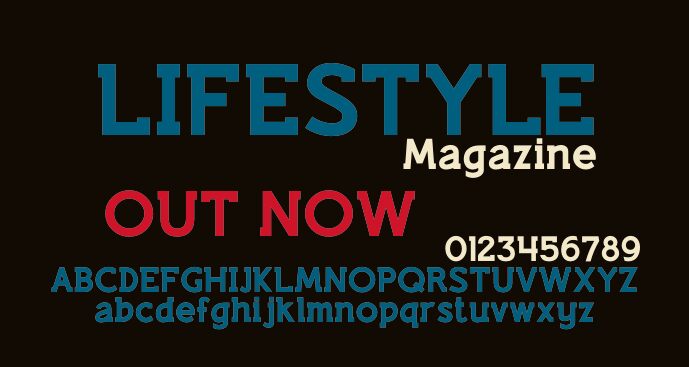
Lifestyle M54 by Mohammed Rahman is a free heavy slab serif display font built around an oversized, poster-like silhouette. Its broad strokes and blunt slab feet build a dense row of lettering, with tight joins that make neighboring forms appear almost interlocked. Rounded letters soften the otherwise blocky construction.
Bold geometric illustration and cropped photography can echo the font's large curves and squared edges on music posters or entertainment graphics. It is especially convincing in title treatments. Packaging and merchandise for streetwear or youth brands can use its compact mass as part of an emblem-like graphic rather than ordinary labeling.
This is a semi-slab serif font. A round-edged version, “Lifestyle Rounded M54,” was also created.